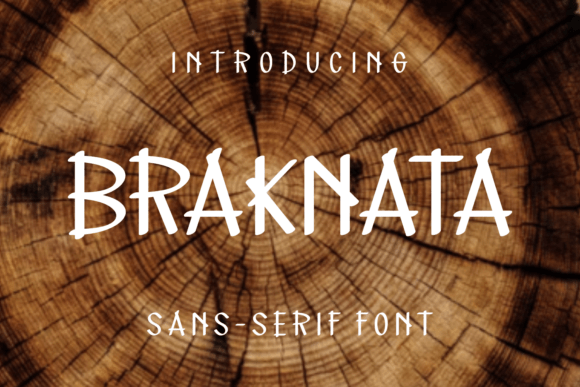
The Ultimate Guide to Braknata Font: Elevate Your Designs with this Stunning Sans Serif
I’ll never forget the time I was working on a project for a client who needed a font that was both modern and elegant. I had spent hours scouring the internet for the perfect one, but nothing seemed quite right. That was until I stumbled upon Braknata Font. This cool and unique sans serif font has since become a staple in my font library, and I’m excited to share its awesomeness with you! 😊
An Honest Review of Braknata Font
What I Love About Braknata Font
- ✨ Highly detailed and neatly crafted design: Braknata Font is meticulously designed, making it perfect for projects that require a bit of sophistication.
- ✅ Versatility: Whether you’re working on a branding project, a craft, or a creative hobby, Braknata Font can enhance any creation.
- 💡 Unique and modern aesthetic: This font has a distinct style that will set your designs apart from the crowd.
While Braknata Font is an excellent addition to any font library, there are a few things to keep in mind:
- 🤔 Some characters may require adjustments: Depending on the project, you might need to tweak certain characters to ensure optimal spacing and readability.
- ⚠️ Not suitable for very small text sizes: Due to its intricate design, Braknata Font may not be the best choice for very small text sizes, as it may lose legibility.
The Backstory of Braknata Font
According to its creators, Braknata Font was designed with the intention of crafting a modern and elegant sans serif font that would cater to the needs of designers and crafters alike. The font’s unique aesthetic is inspired by the intersection of traditional typography and contemporary design.
| Font Name | Braknata Font |
| Author | lelevien |
| What type of projects is Braknata Font best suited for? | Braknata Font is versatile and can be used for a wide range of projects, including branding, advertising, packaging, and more. |
| Is Braknata Font suitable for body text? | While Braknata Font is beautiful, it’s best used for headlines and titles. For body text, consider using a font with better legibility. |
| Is Braknata Font available in different weights? | Yes, Braknata Font comes in various weights, making it suitable for a range of design applications. |